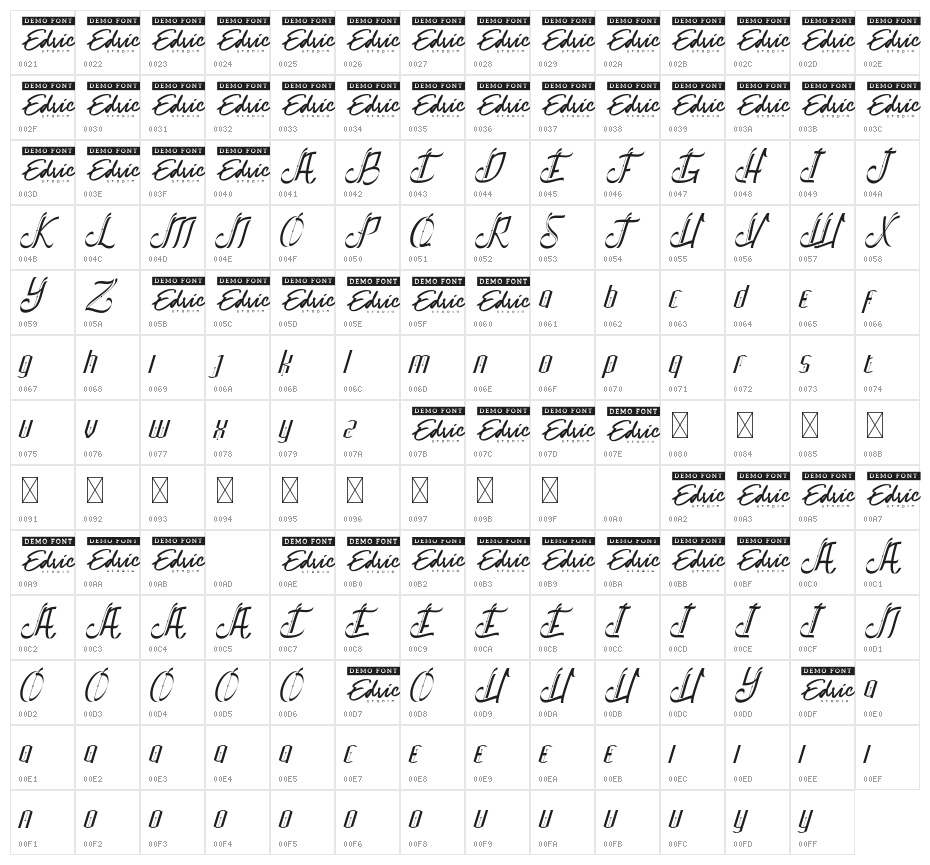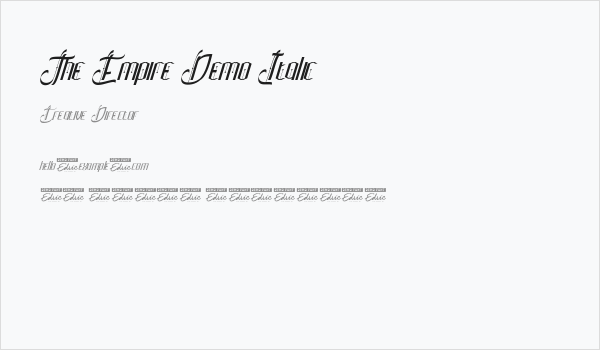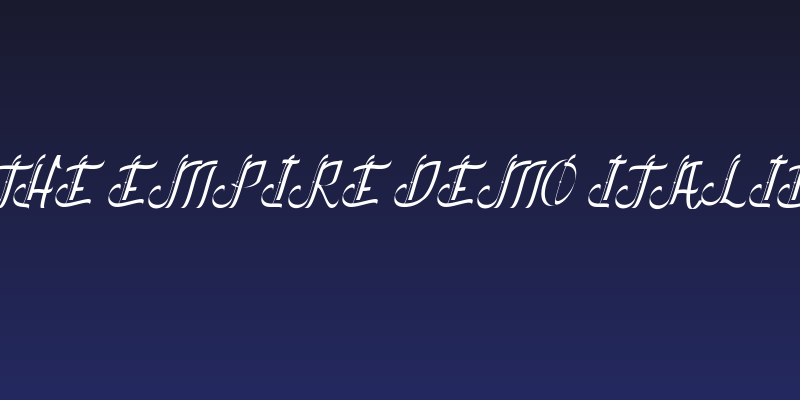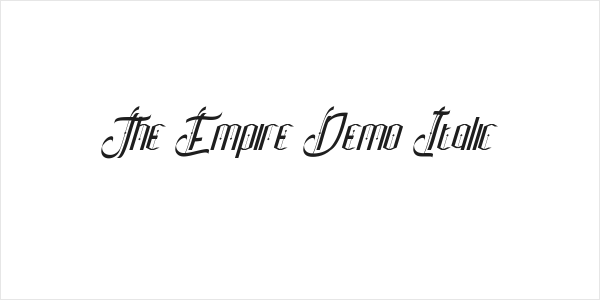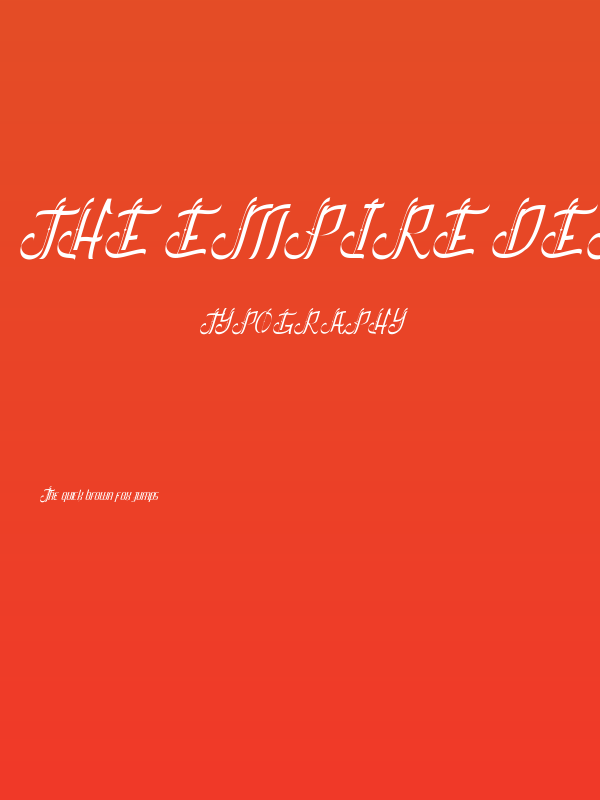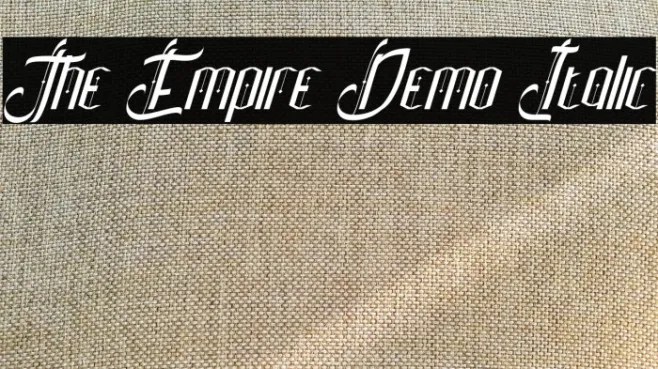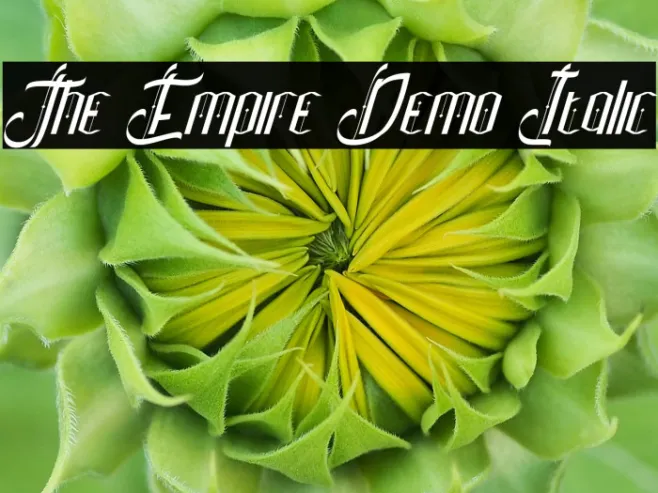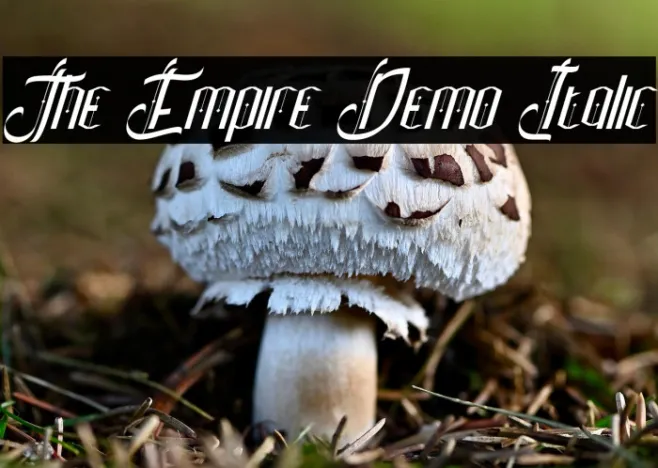
The Empire Demo Italic Font
The Empire Demo Italic Description
This font features a dynamic and modern italic style with sharp, angular lines and a distinct geometric flair. The uppercase letters exhibit a strong presence with elongated strokes and a slight slant, creating a sense of movement and energy. The lowercase letters maintain this angular aesthetic, providing a cohesive look across the alphabet. The numerals and special characters are designed to match the overall style, ensuring consistency throughout. The font's unique design makes it suitable for projects that require a bold and contemporary appearance.